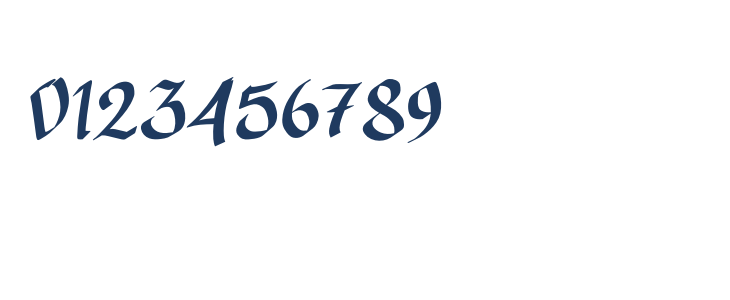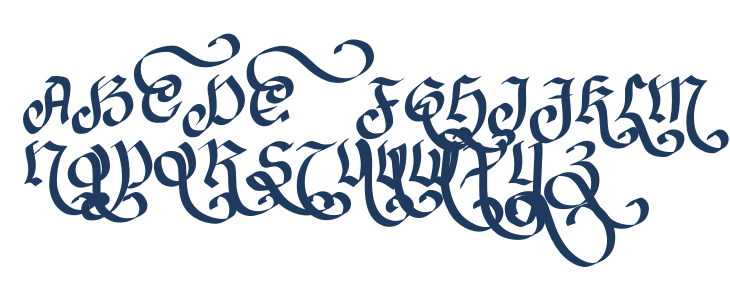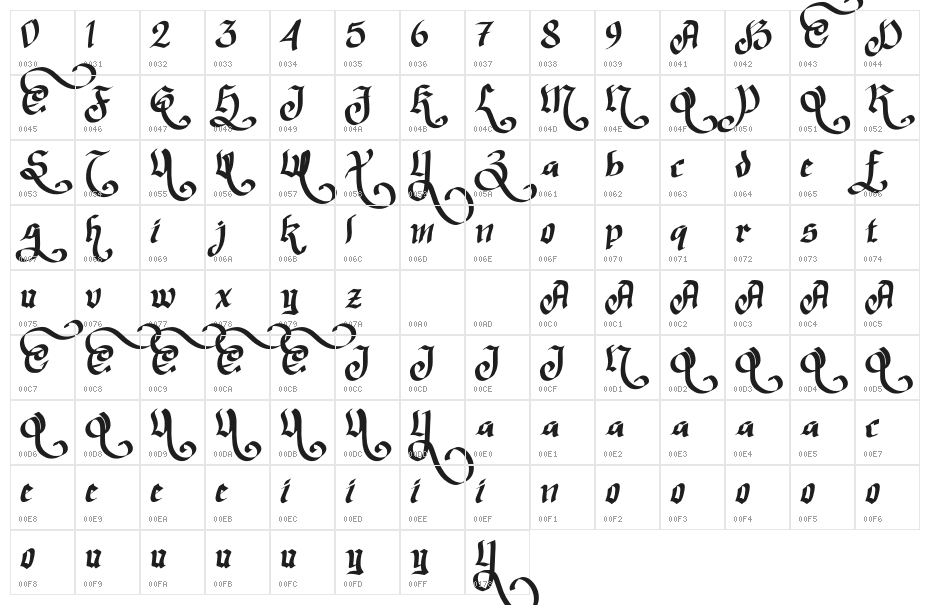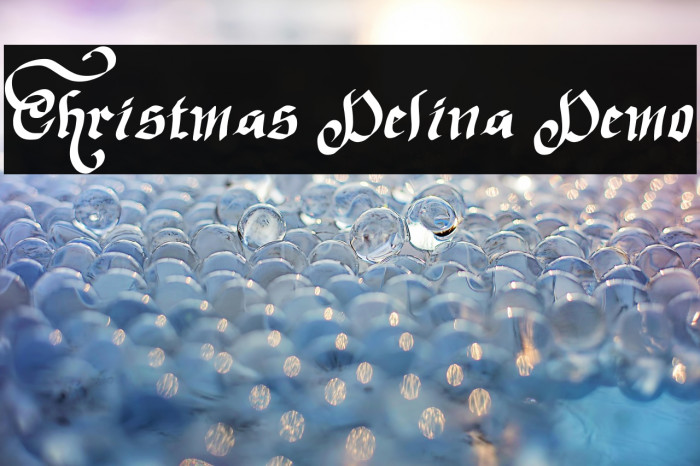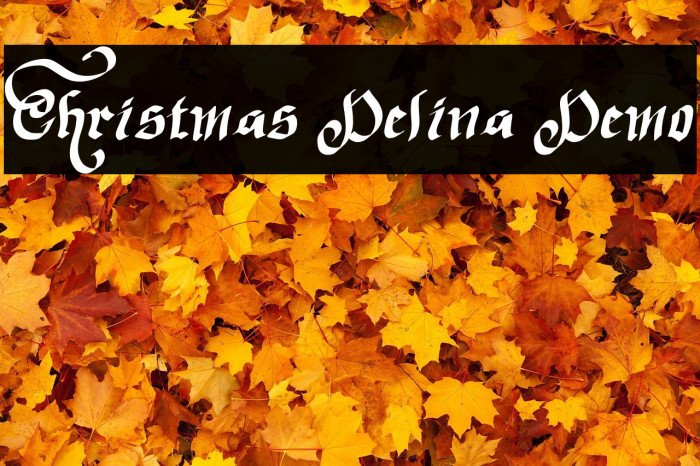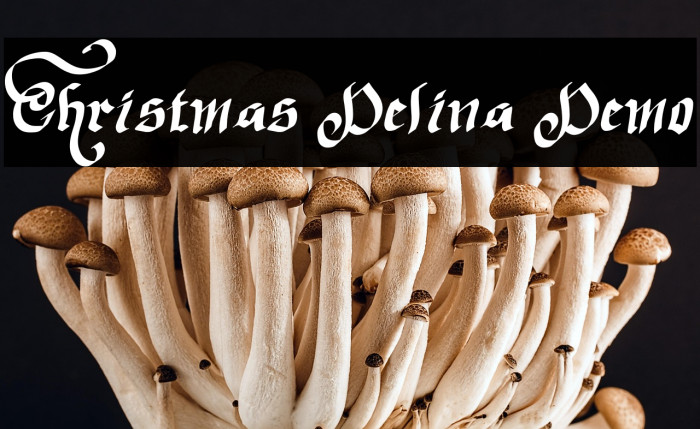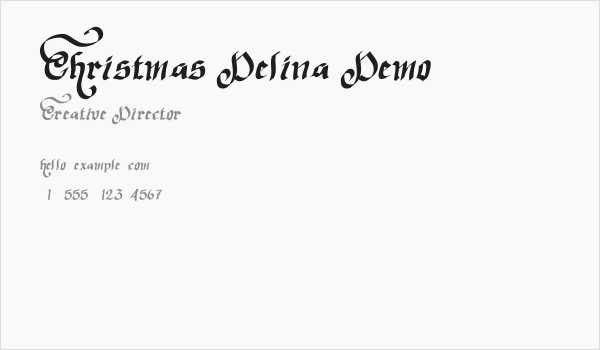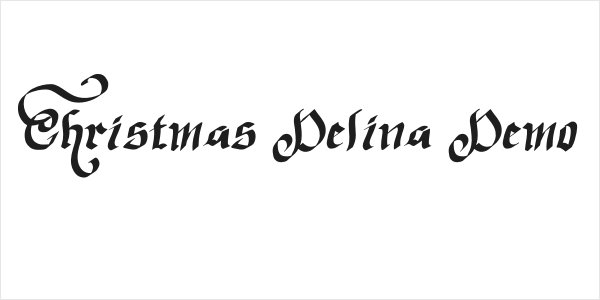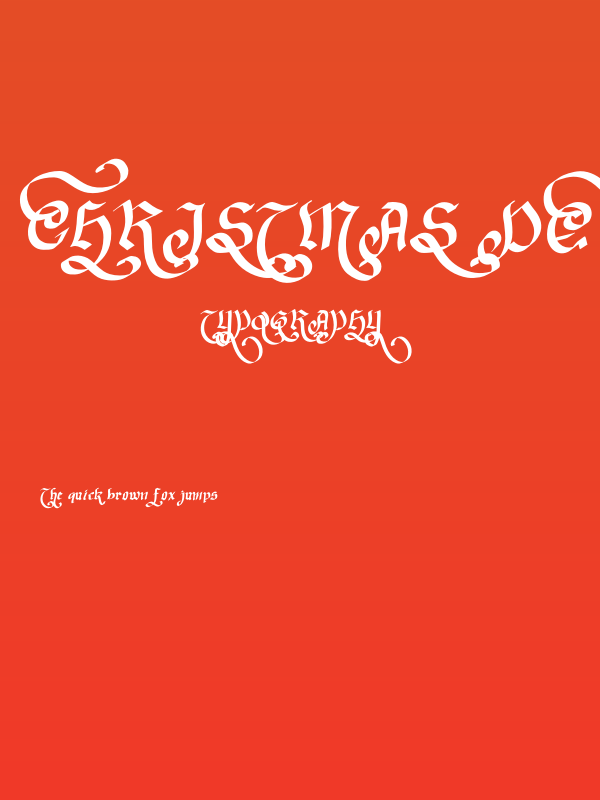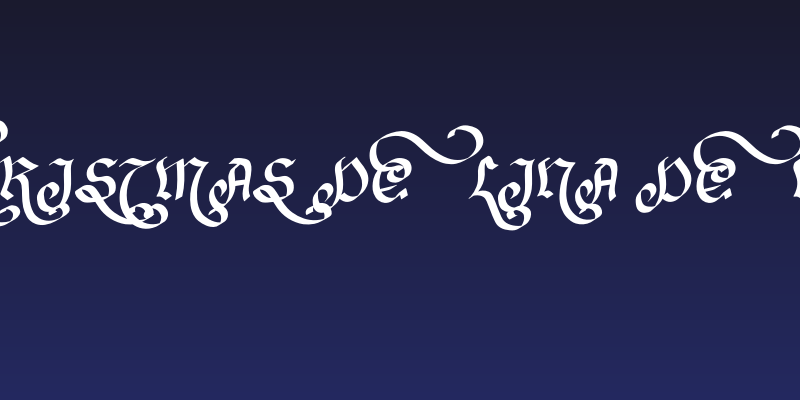
Christmas Delina Demo Font
Christmas Delina Demo Description
Highly decorative blackletter-inspired typeface with elaborate swashes on uppercase letters, sharp angular forms, and dramatic contrast between thick and thin strokes. Lowercase letters are more restrained but still feature pointed terminals and a calligraphic feel.
| Overall Style | Decorative, Gothic, Festive |
| Use Case | Headlines, Logos, Decorative text |
| Proposed Projects | Holiday cards, event invitations, gothic posters, branding for themed events, decorative headlines. |